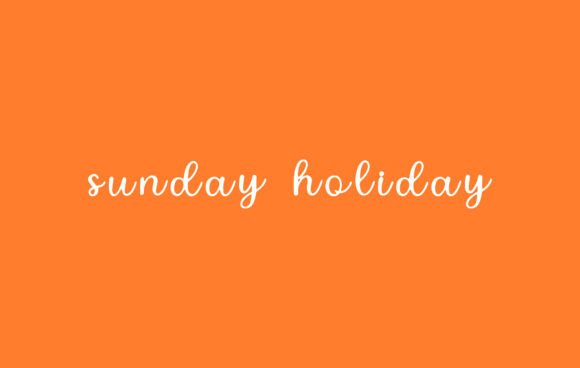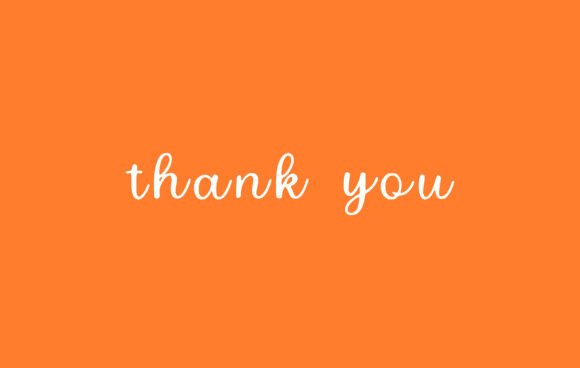
Discover Your Inner Adventurer with the Cave Explorer Font
Have you ever found yourself staring at a blank page, wondering where to begin? The blank slate of a new project can be both exhilarating and intimidating. But what if I told you there’s a way to spark your creativity and bring your ideas to life? Enter the Cave Explorer Font, a charming and authentic handwritten font designed to transport you to a world of endless possibility.
This enchanting font is perfect for designers seeking a unique touch to elevate their creative projects. Whether you’re crafting magazine headlines, social media posts, or wedding invitations, the Cave Explorer Font is sure to captivate your audience. Its romantic charm and exceptional legibility make it an invaluable asset for any designer looking to add a personal touch to their work.
Cave Explorer Font Key Features
- Size: The font family includes 6 different font weights, ranging from Thin to Extra Bold.
- Unique Characteristics: This font features a unique, hand-drawn style with intricate details and textures, evoking the sense of exploration and discovery.
- Font Metrics: The font’s x-height and line spacing are carefully crafted to ensure optimal readability, even at small font sizes.
Cave Explorer Font Review
I was excited to dive into the world of Cave Explorer Font, and here’s my honest take on it.
The font’s unique blend of modern and ancient elements really catches the eye. It’s perfect for adding a touch of adventure and mystery to your designs.
- Unique design that sets it apart from other fonts
- Well-suited for titles, headings, and any text that needs to stand out
- Works well in a variety of contexts, from web design to print materials
While Cave Explorer Font is great for titles and headings, it can be a bit difficult to read in large blocks of text. Additionally, some characters may not display correctly in certain contexts.
- Not ideal for body text or long passages of text
- Some characters may not display correctly in certain font sizes or contexts
- Can be difficult to pair with other fonts, due to its unique design
Cave Explorer Font is a bold and eye-catching addition to any design. While it may have some limitations, it’s perfect for adding a touch of adventure and mystery to your work. Just be sure to use it wisely, and in contexts where its unique design will shine.
Tips: Use the Cave Explorer Font to create a sense of adventure and exploration in your designs. Pair it with bold colors and geometric shapes to create a unique look.
Tips: Use the Cave Explorer Font to create a sense of depth and dimensionality in your designs. Pair it with bold textures and patterns to create a unique look.
Tips: Use the Cave Explorer Font to create a sense of excitement and energy in your presentations. Pair it with bold graphics and images to create a engaging look.
The Cave Explorer Font is perfect for:
Adventure and travel designs
Geological and scientific illustrations
Outdoor and sports branding
Exploration and discovery-themed presentations